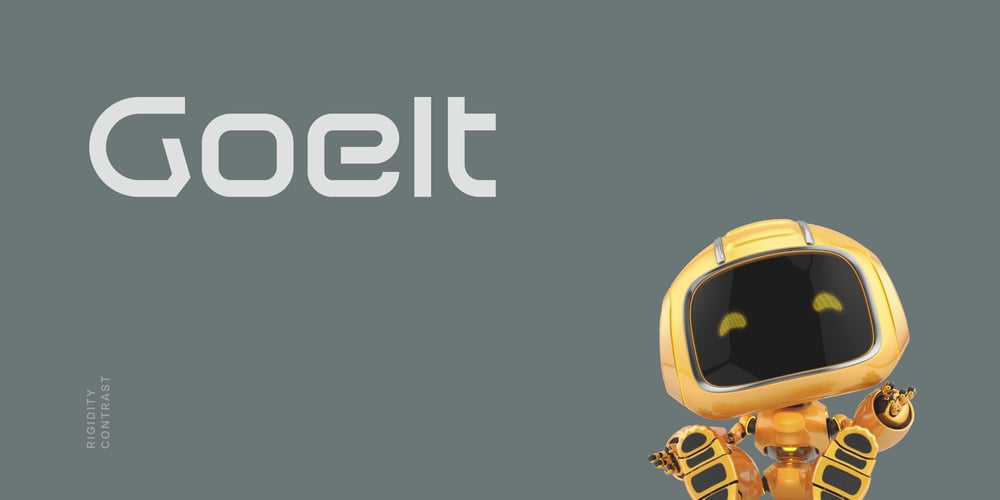
Goelt Font Family was designed by Andrew Seah and published by Baqoos. Goelt contains 3 styles and family package options. Goelt is a rigidity contrast linear sans apt for headline, editorial, branding, packaging, printed materials and typographic applications. 150+ glyphs with ligatures and fractions provided in opentype .otf and .woff format.